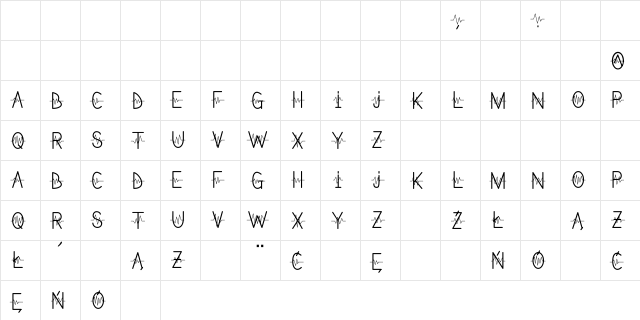
Lifeline Regular
| Designer | MichaB Lewkowicz 2002 |
Design Context for Lifeline Typeface
Lifeline is a composed and adaptable typeface that performs quietly and consistently across a wide range of design contexts.